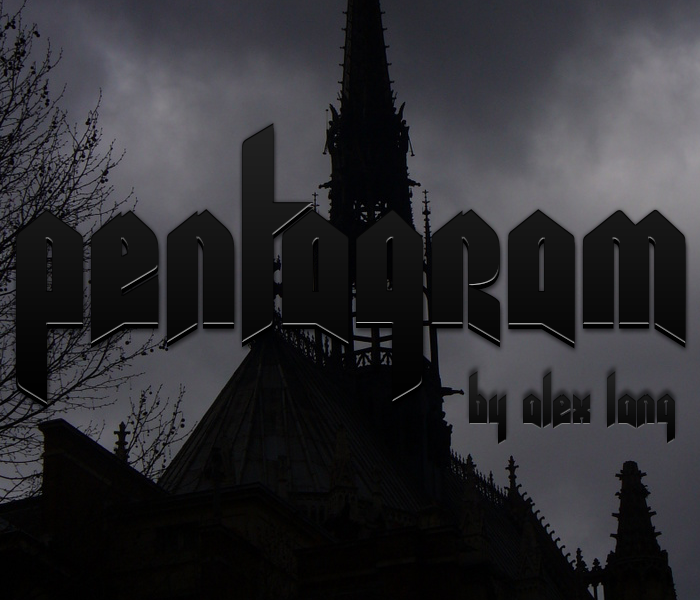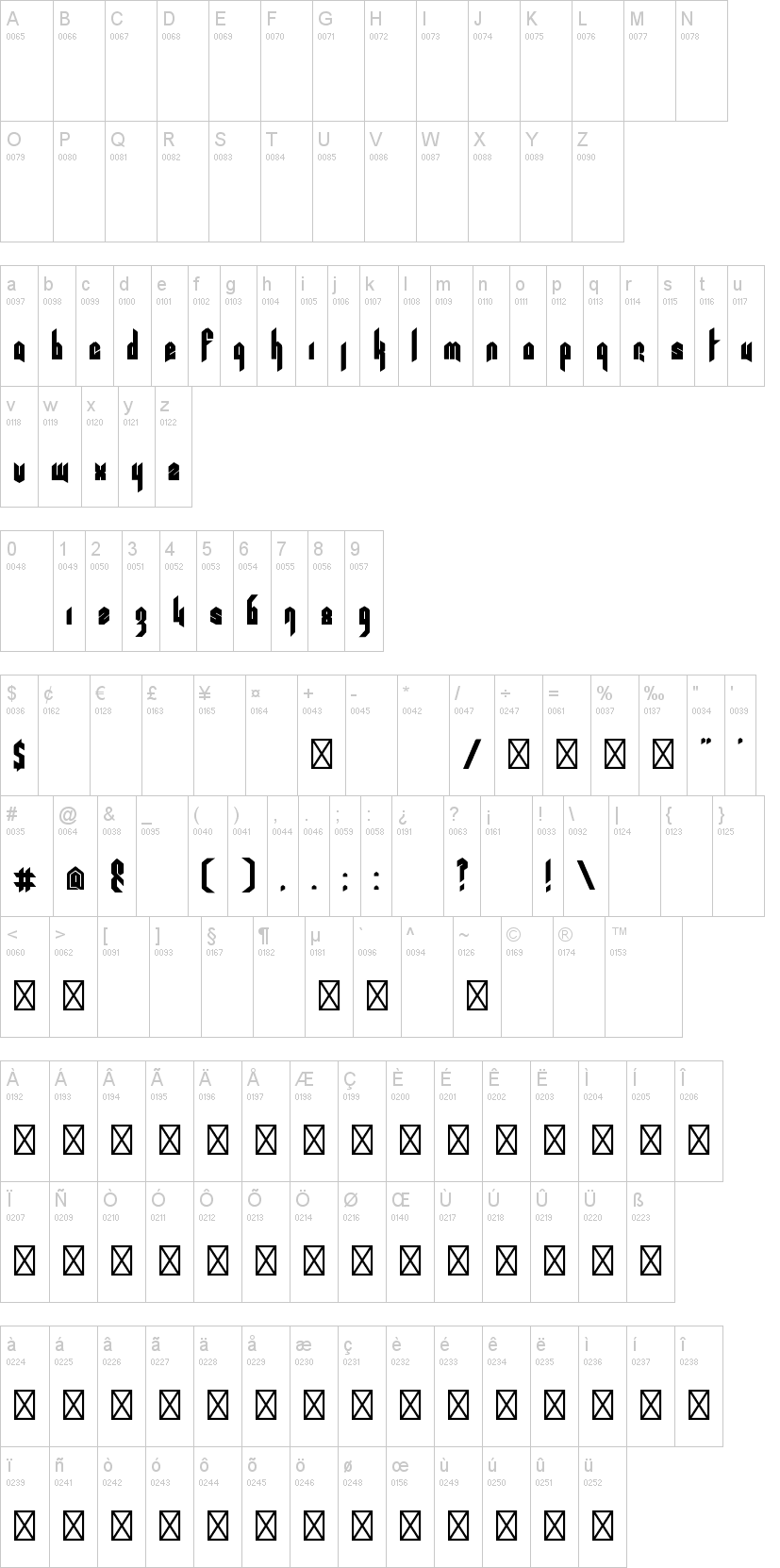
Шрифт Pentagram
otf font designed by Alex Lang
Designed based of metal band logos and type. Perfect for metal band logos. Every word looks metal as hell.
includes lowercase, numerals, and ligatures.